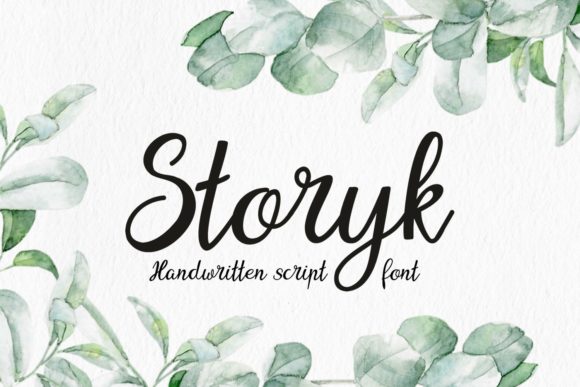
Dive into the realm of Storyk Font, a captivating and timeless handwritten font, meticulously crafted to add an enchanting charm to your creative projects. Embark on a typographic odyssey, where delicate strokes intertwine to weave a tapestry of emotions and elegance, leaving a lasting impression on your audience.
Storyk beckons you to explore its enchanting world, where each letter dances across the page with grace and finesse. Its seamless flow and elegant curves exude a sense of sophistication, while its delicate details hint at a hidden narrative, waiting to be discovered. Whether it's a heartfelt wedding invitation, a heartfelt thank-you card, or a captivating quote, Storyk elevates your words, transforming them into visual masterpieces.
With Storyk as your chosen font, you'll effortlessly create designs that resonate with your audience on a deeper level. Its inherent versatility lends itself to a myriad of applications, from logos and business cards to greeting cards and social media posts. The possibilities are boundless, as Storyk seamlessly adapts to your creative vision, adding a touch of magic to every project.
Picture this: a wedding invitation adorned with Storyk's graceful script, conveying the essence of love and commitment in every stroke. The thank-you cards, etched with Storyk's delicate charm, express gratitude with a heartfelt touch. Logos and business cards, adorned with Storyk's timeless elegance, leave a lasting impression, exuding professionalism and creativity. And as your words dance across social media posts, Storyk amplifies their impact, captivating your audience with its undeniable allure.
Join the creative journey with Storyk Font, and watch as your designs blossom into captivating masterpieces. Its timeless beauty and versatility will transform your projects into visual symphonies, leaving an indelible mark on the hearts of your audience. Embrace the power of Storyk and unlock the boundless possibilities of your imagination.